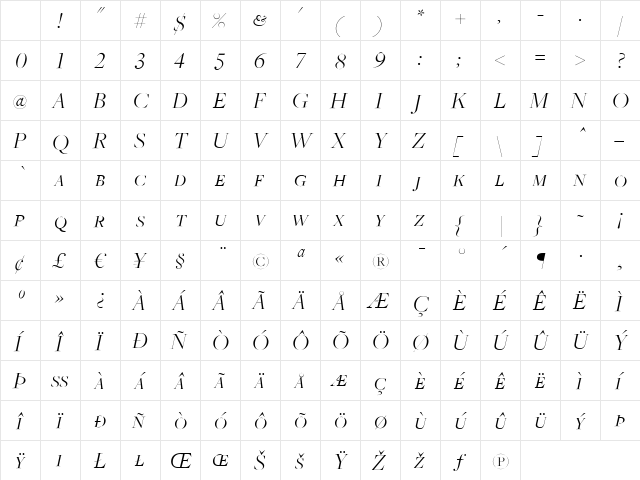
Complete FreightBigLightItalicSC Regular glyph index. Displaying only characters natively supported by FreightBigLightItalicSC Regular font.
FreightBigLightItalicSC is a composed and adaptable typeface that performs quietly and consistently across a wide range of design contexts. The slanted form adds forward momentum and visual energy. Its slender proportions lend an understated elegance to any composition.
Pro Tip: Use FreightBigLightItalicSC for emphasis, pull quotes, and subheadings where its slanted energy can add rhythm to the layout.